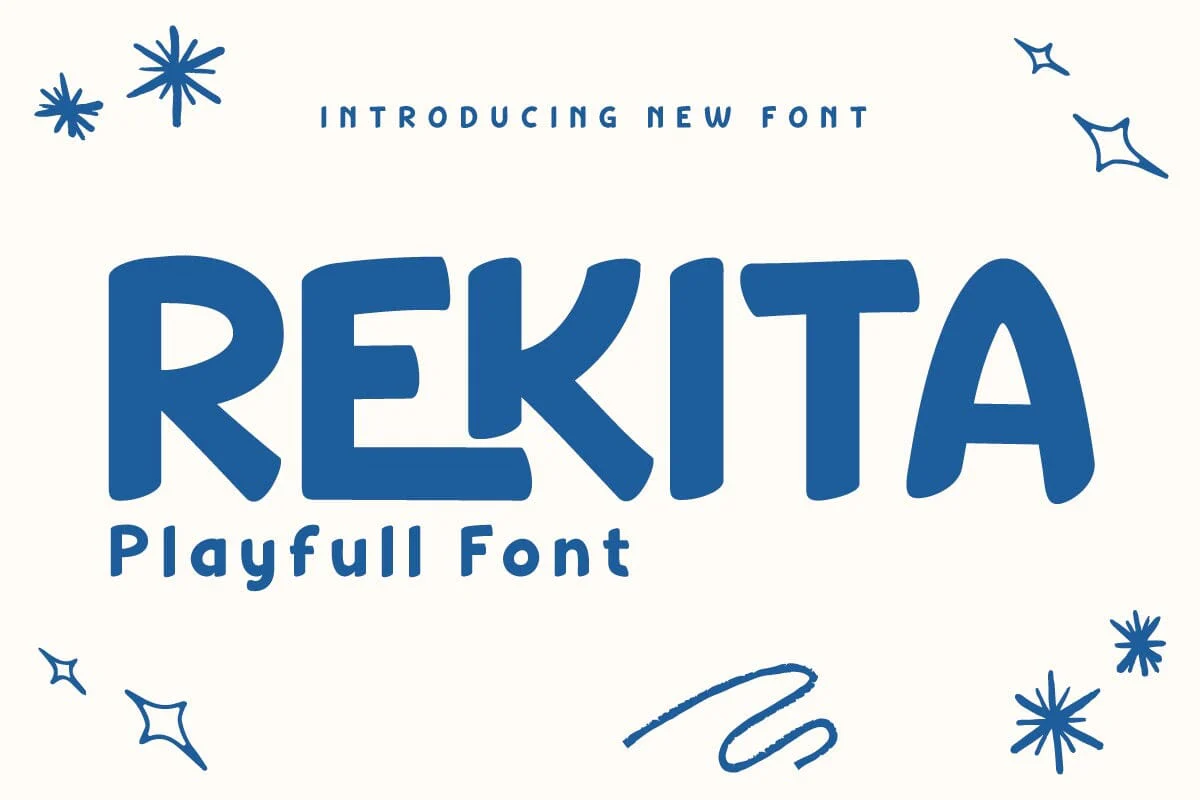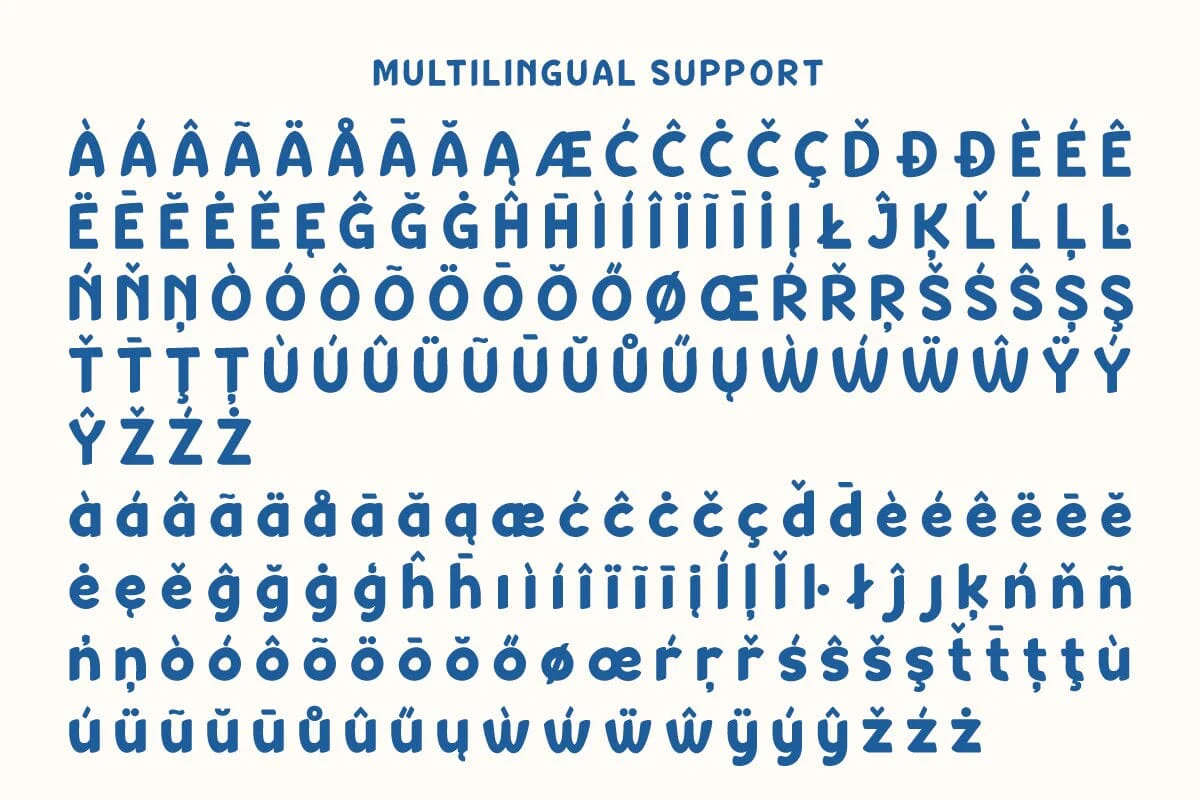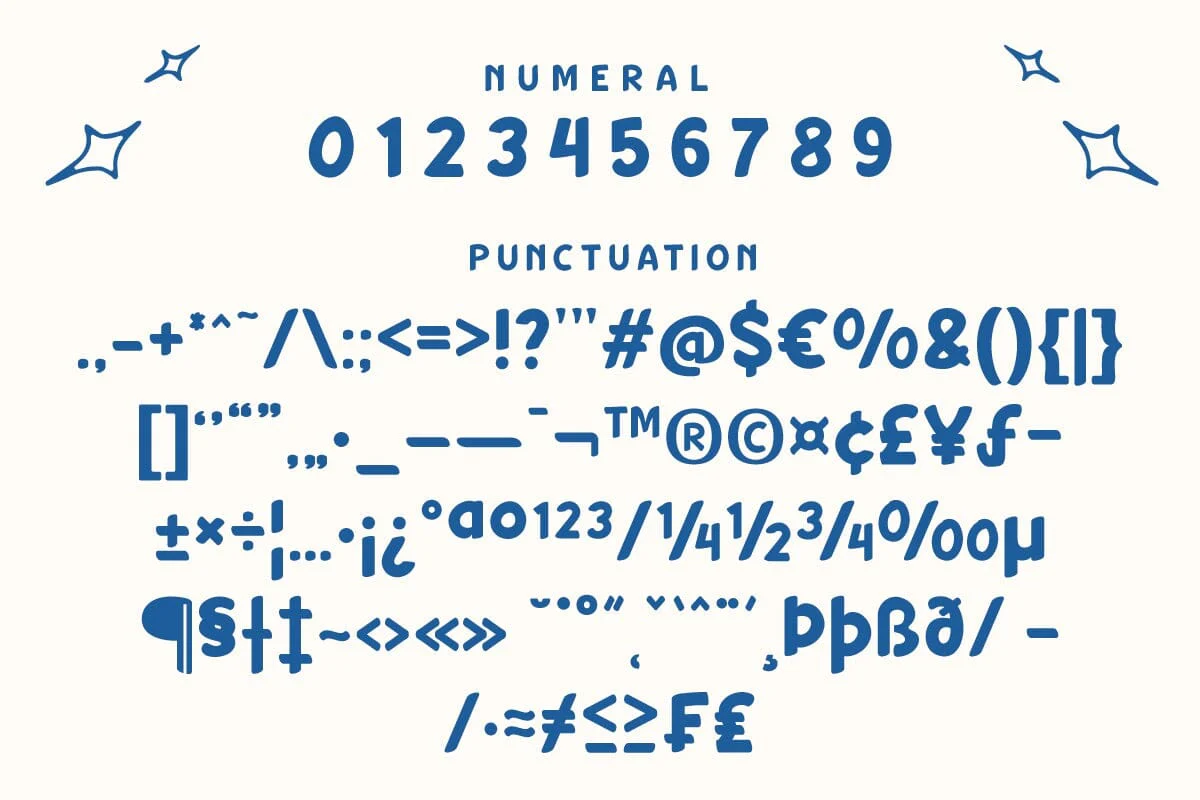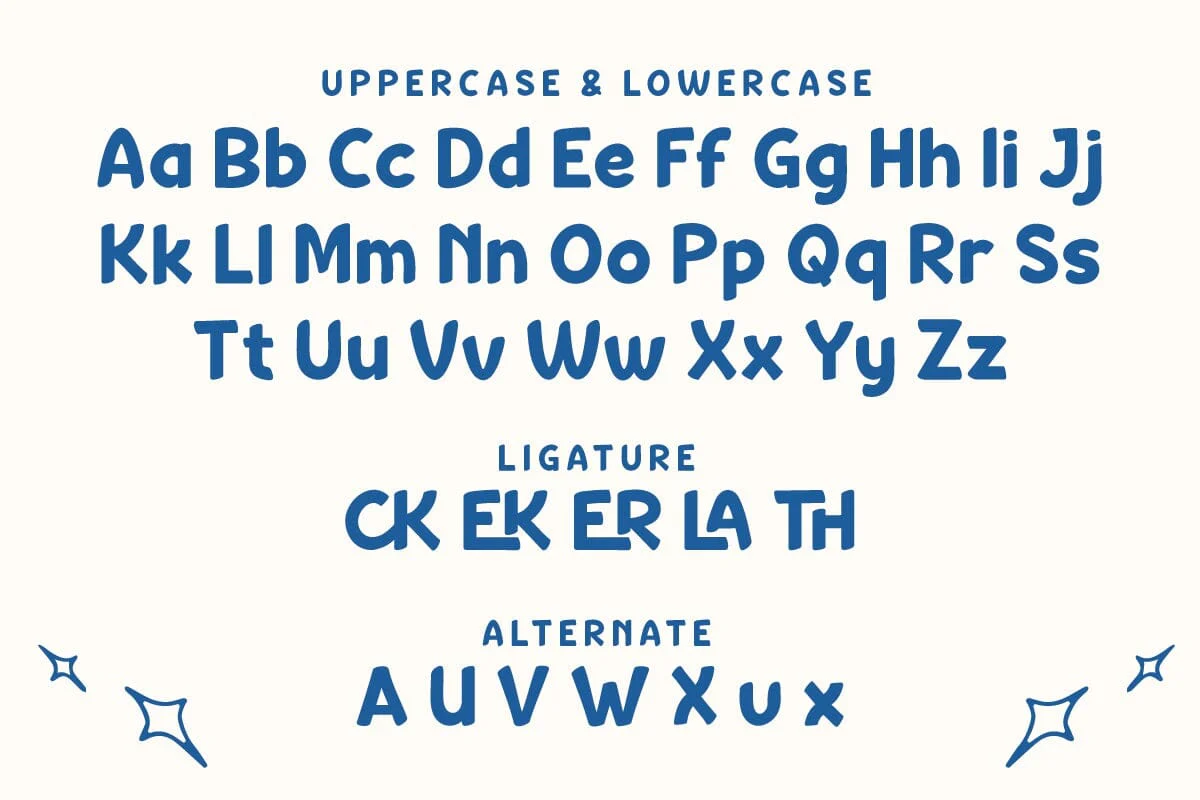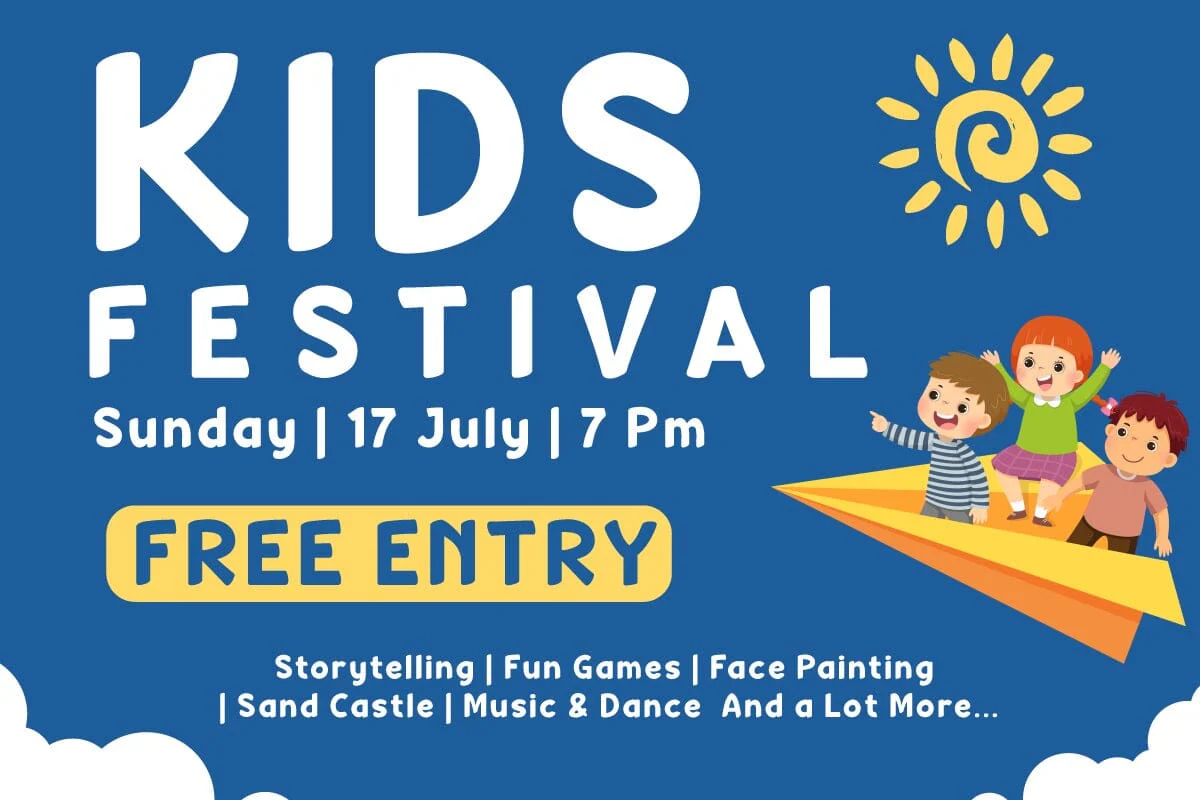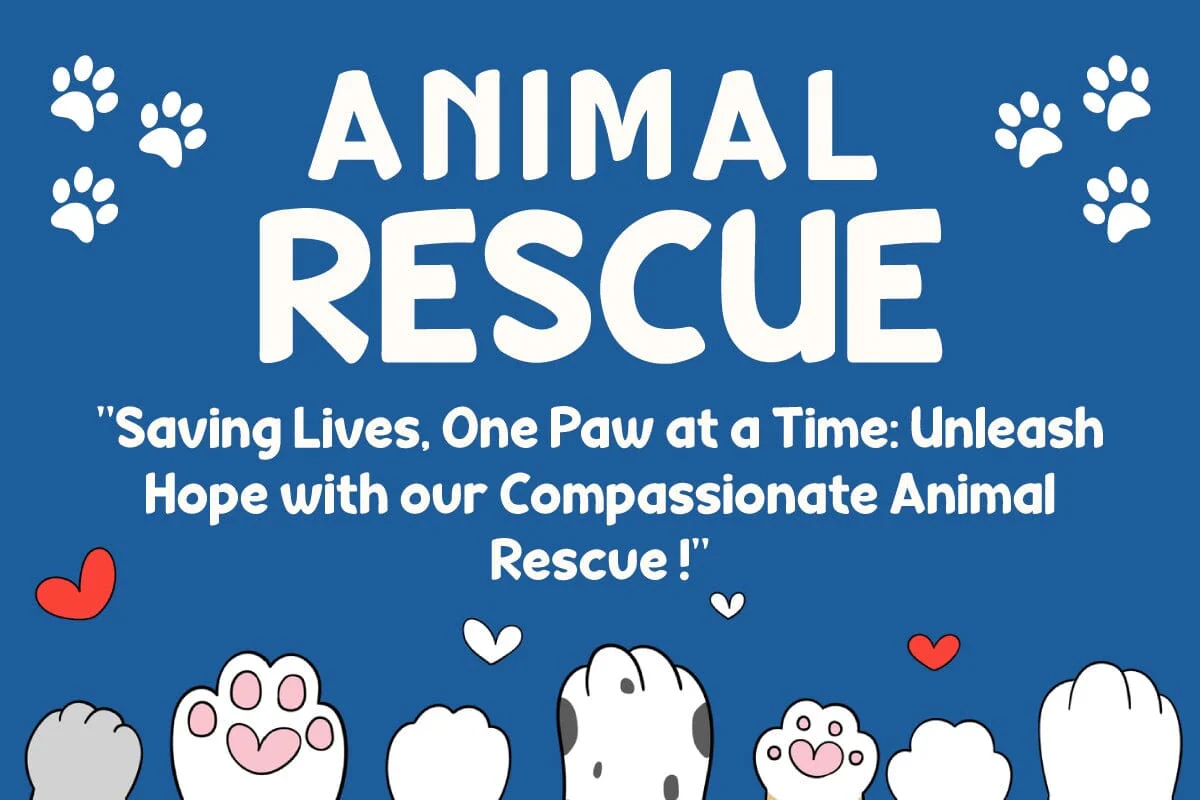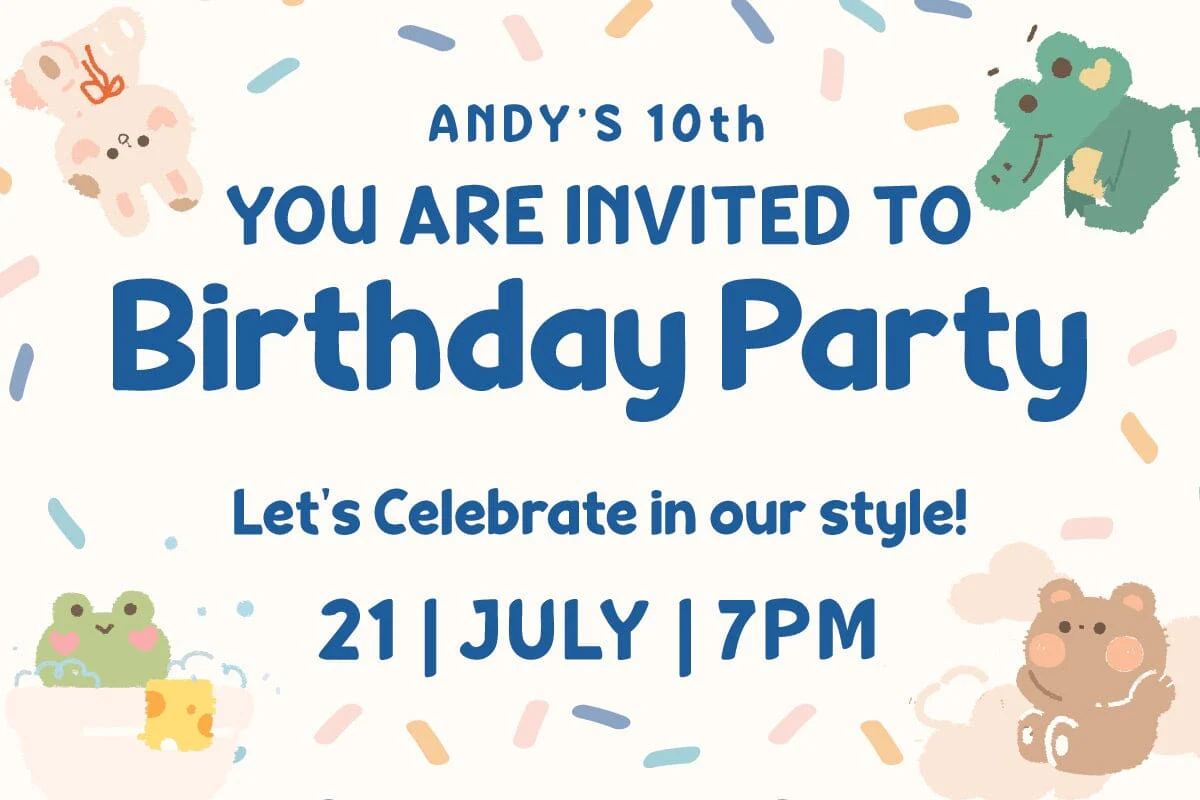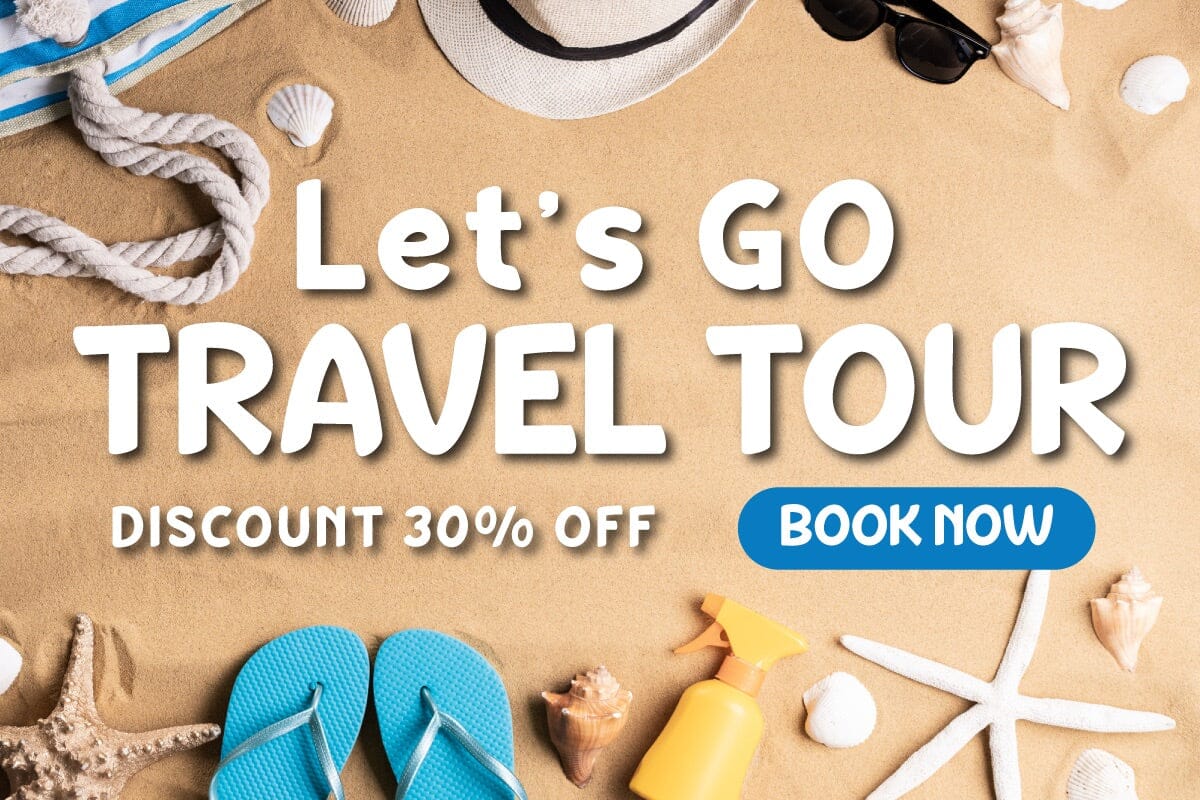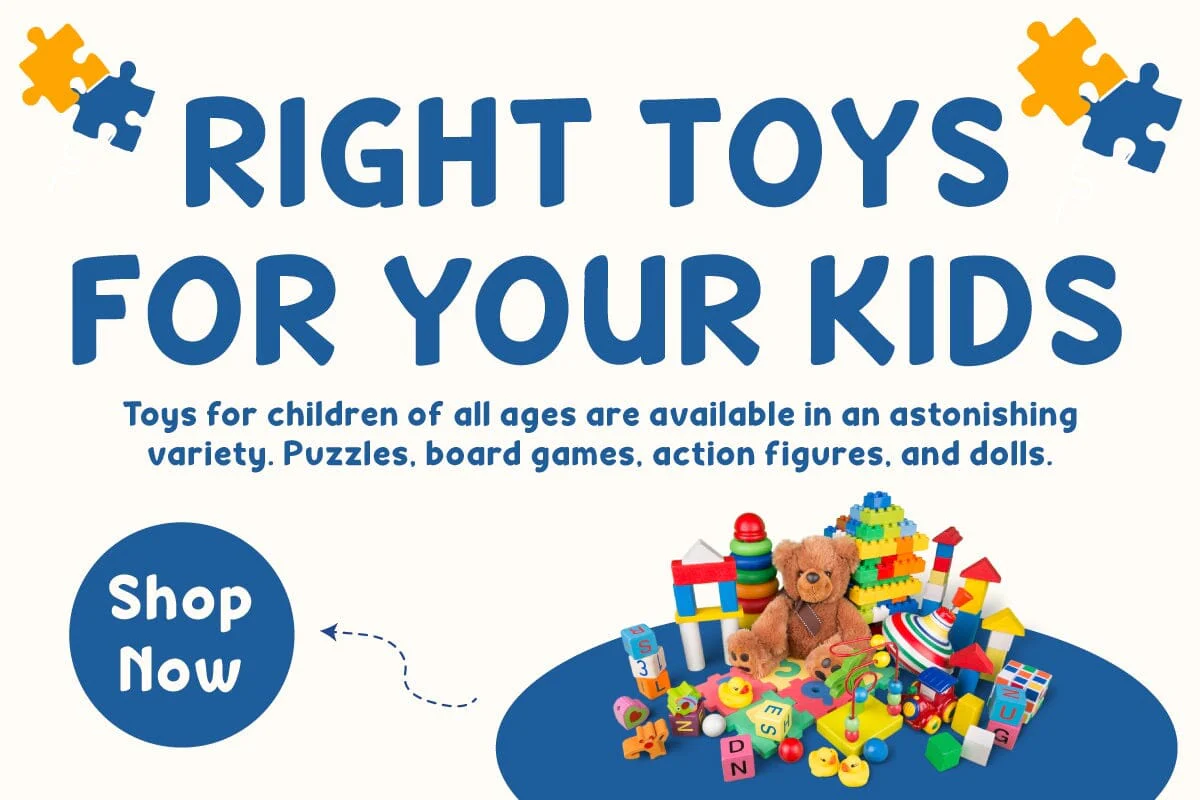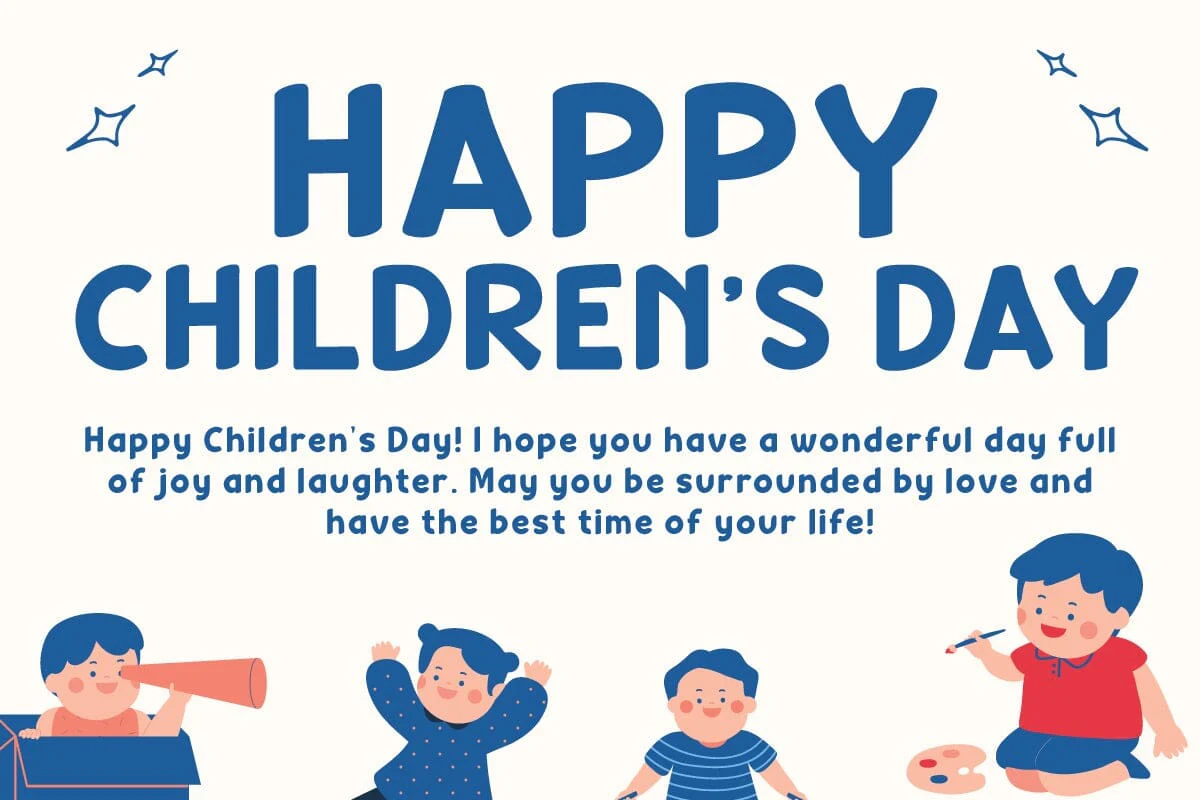
Rekita Font
Introducing “Rekita Font” – Your Gateway to Playful Typography!
Rekita Font is a captivating typeface designed to infuse playfulness and creativity into your projects. With its whimsical and charming characters, this font is your perfect companion for any design that seeks a touch of lightheartedness.
Whether you’re crafting children’s books, eye-catching posters, or engaging social media graphics, Rekita Font effortlessly adds a fun and youthful vibe to your work. It’s a versatile choice that breathes life into your designs and sparks joy in your audience.
Embrace the lively spirit of Rekita Font and unlock a world of creative possibilities. Elevate your design game, grab attention, and leave a lasting impression with this delightful typeface.
Discover the magic of Rekita Font and let your creativity run wild with playful typography today!